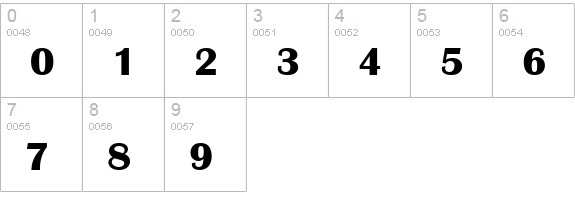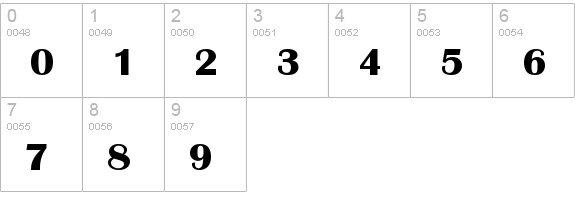
BritannicTBol Font Details
BritannicTBol is a modern and stylish font that exudes elegance and sophistication. Its clean lines and bold strokes make it perfect for a wide range of design projects, from branding to editorial layouts. The versatility of BritannicTBol allows it to be used in both digital and print media, making it a valuable addition to any designer's toolkit. What makes BritannicTBol even more appealing is that it is available for free download at FontsMarket.com. This means that you can easily access this high-quality font without any cost, allowing you to elevate your designs without breaking the bank. Whether you're creating a logo, poster, or website, BritannicTBol is sure to make a lasting impression with its timeless appeal and modern flair. Download BritannicTBol today and take your designs to the next level!